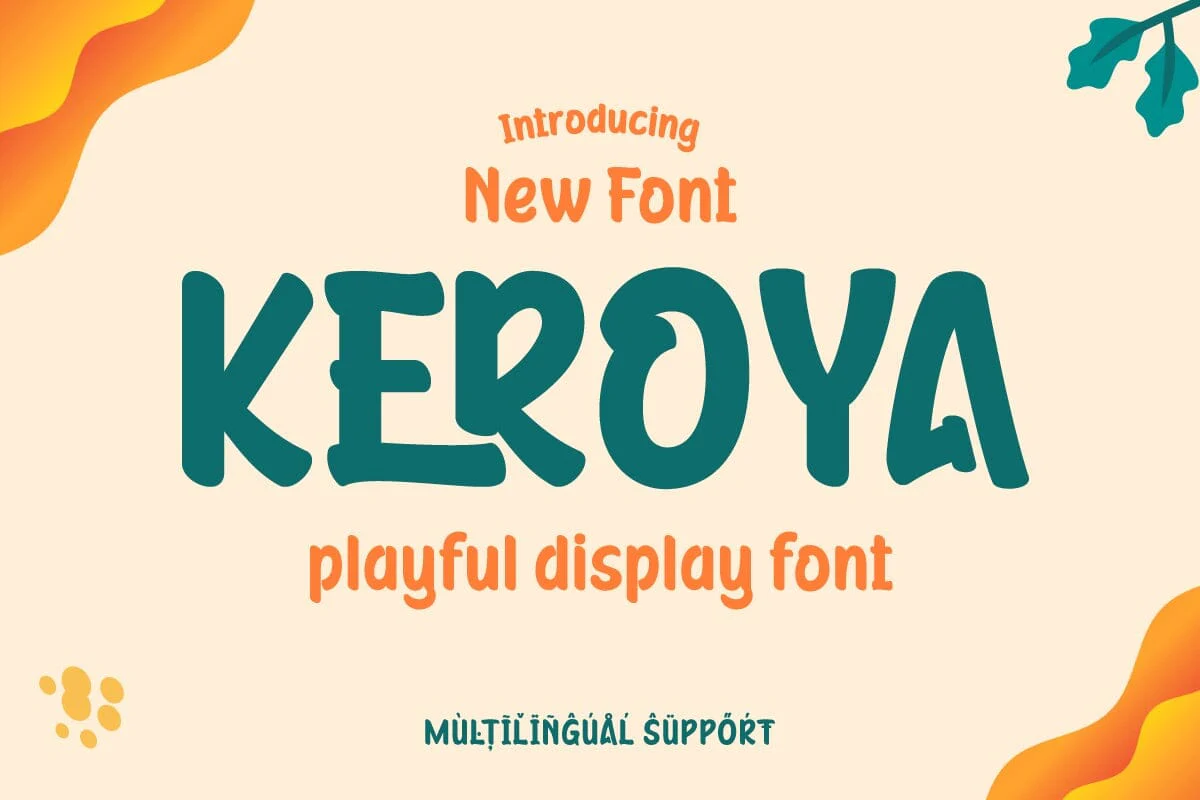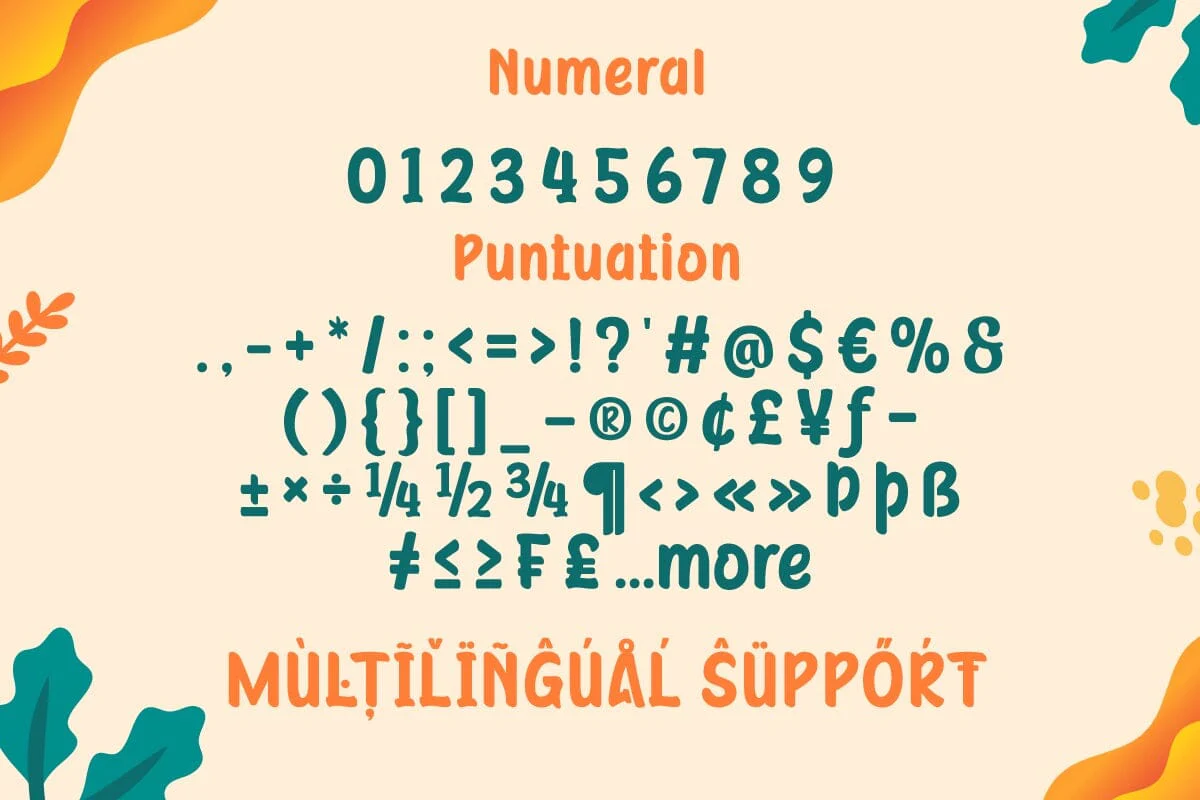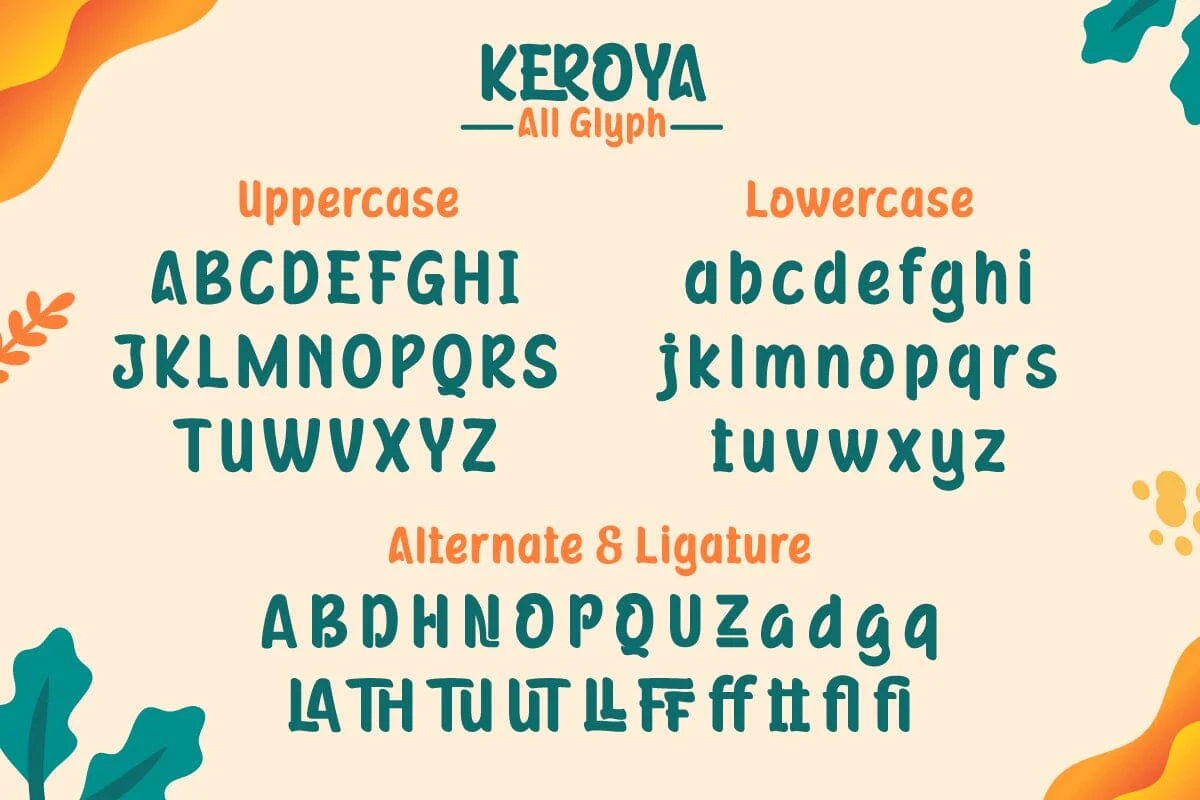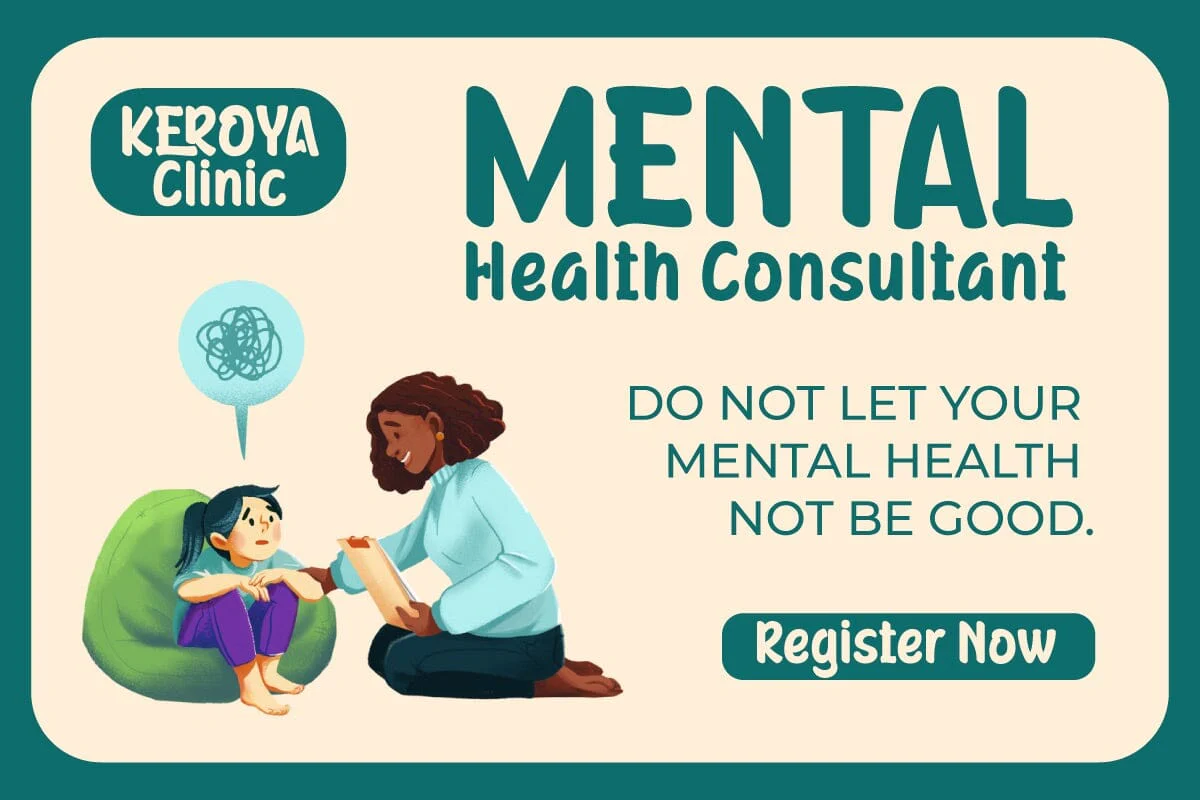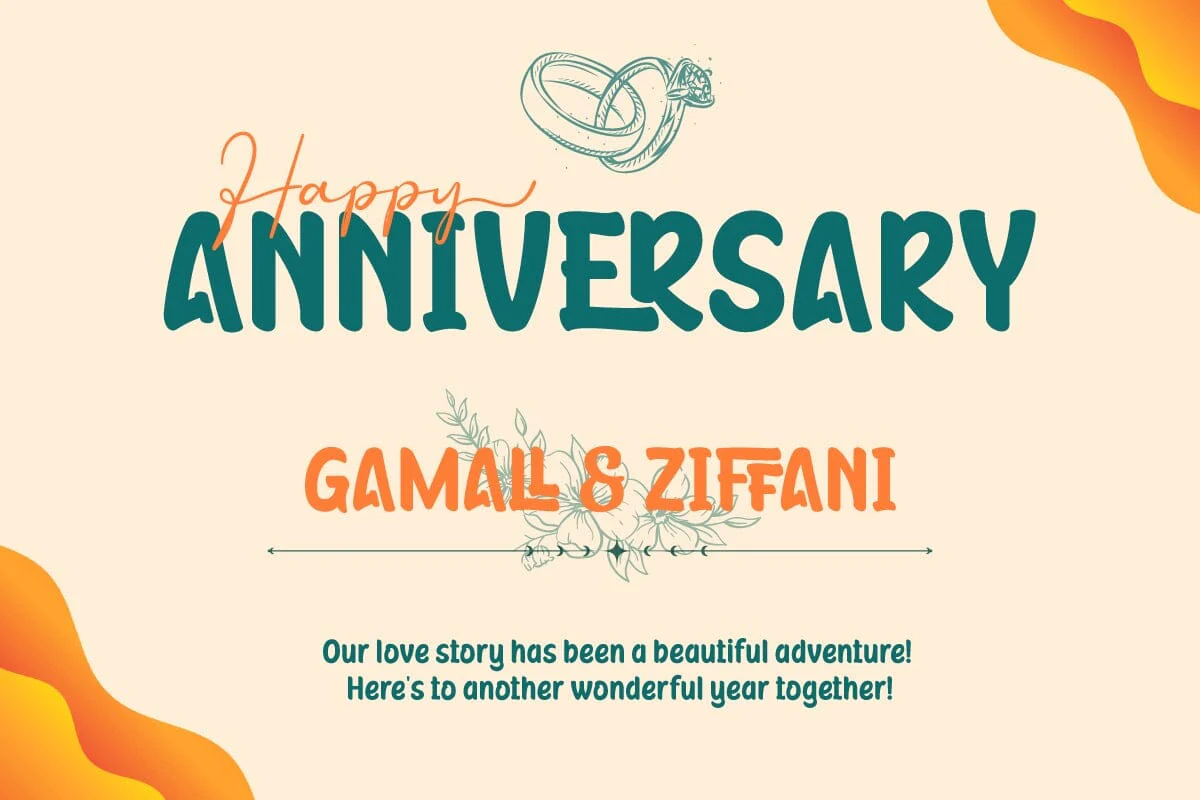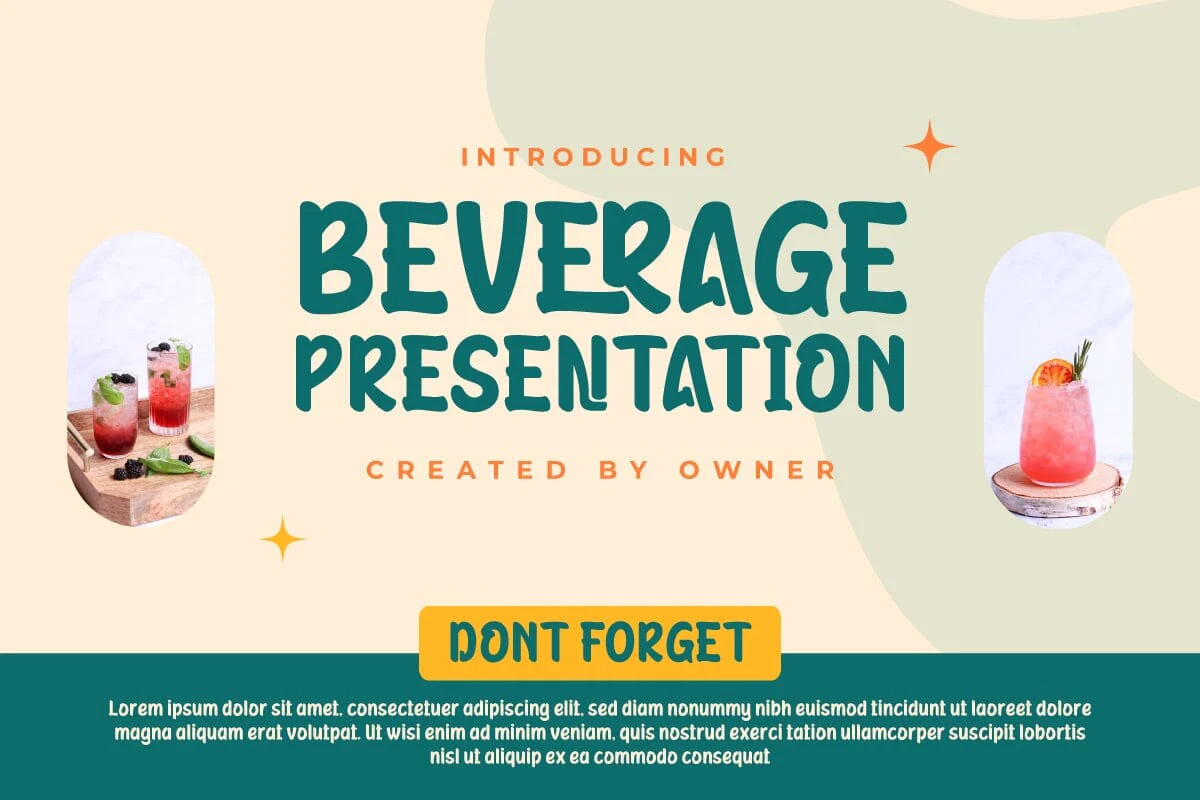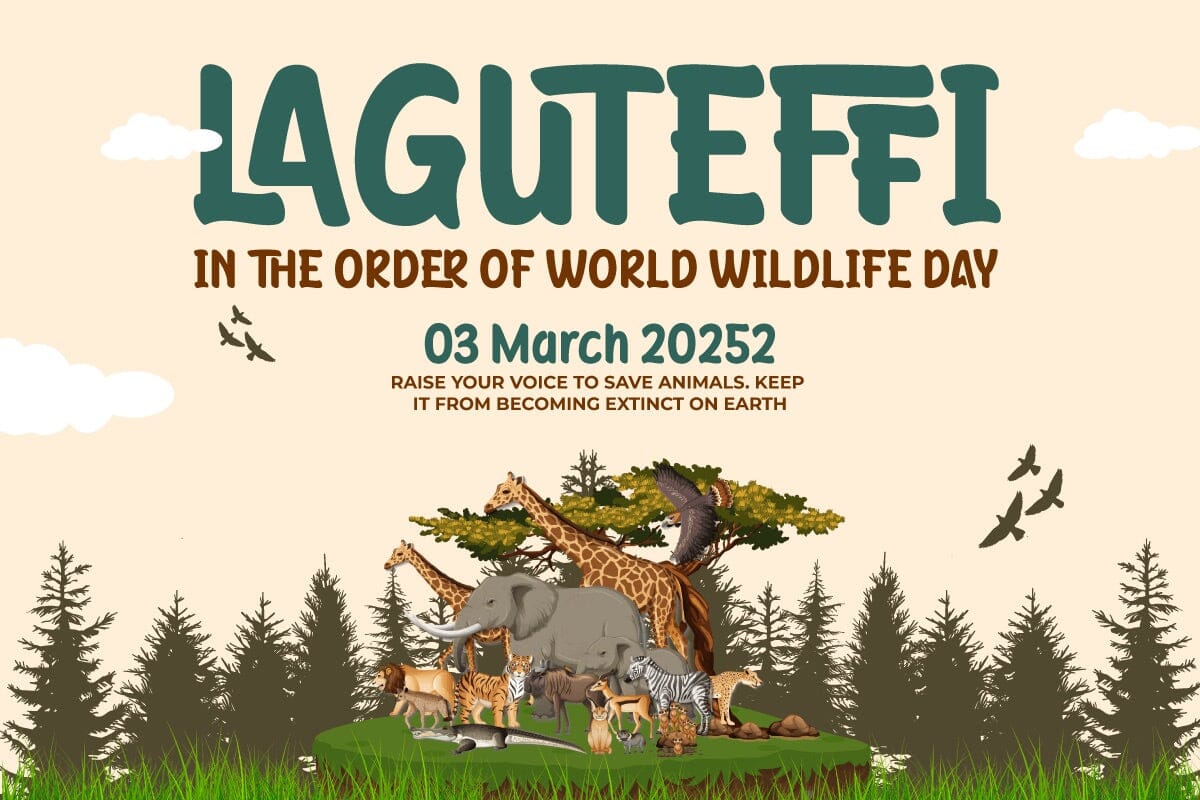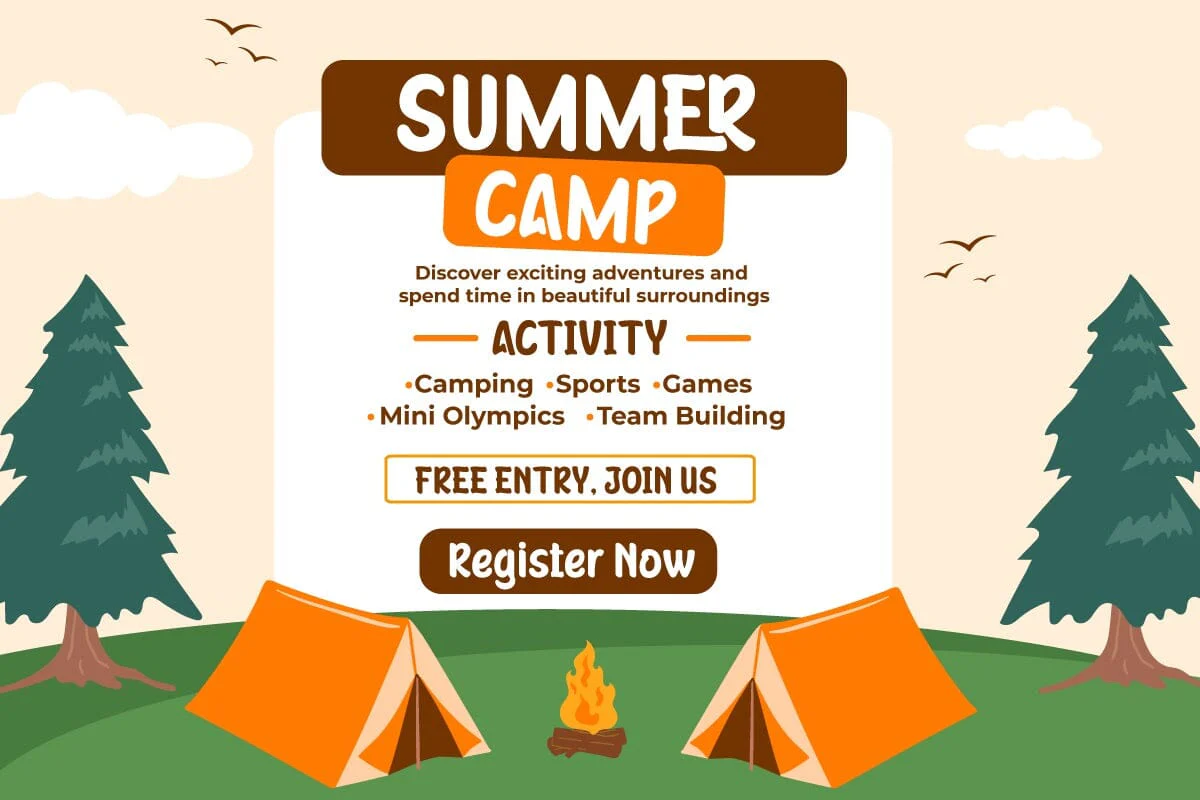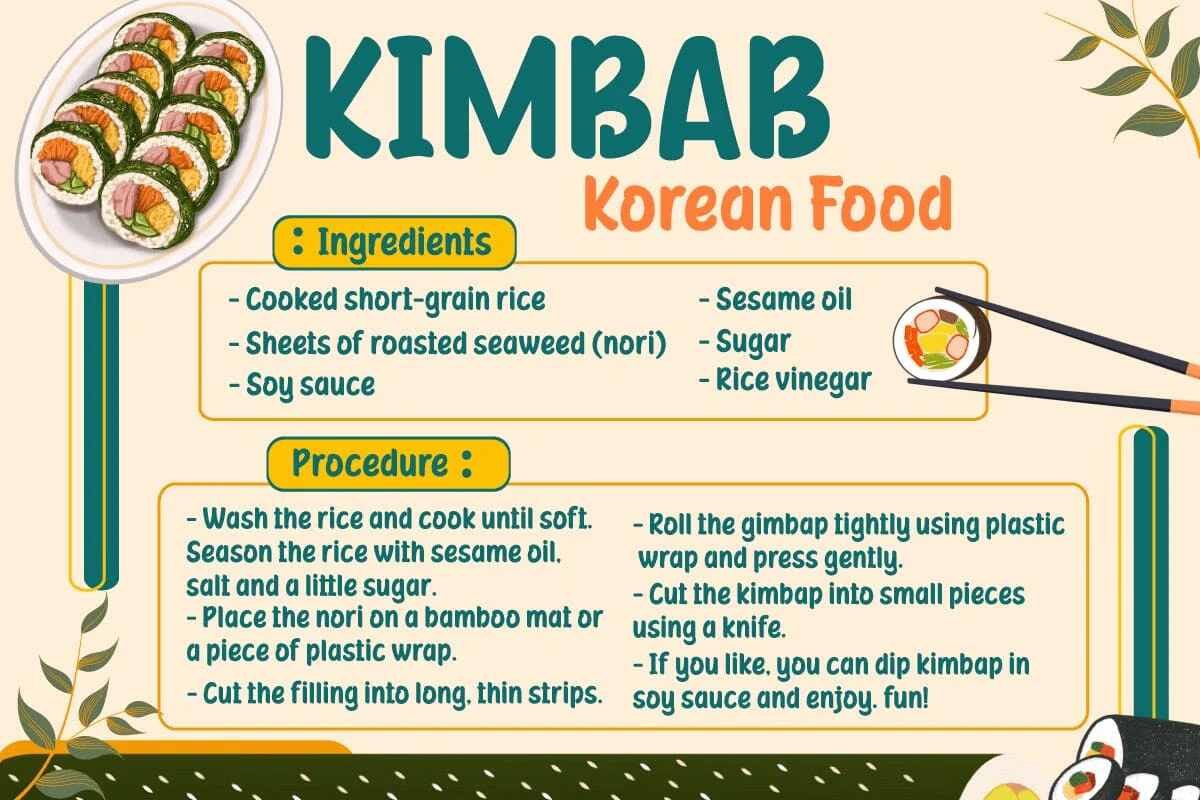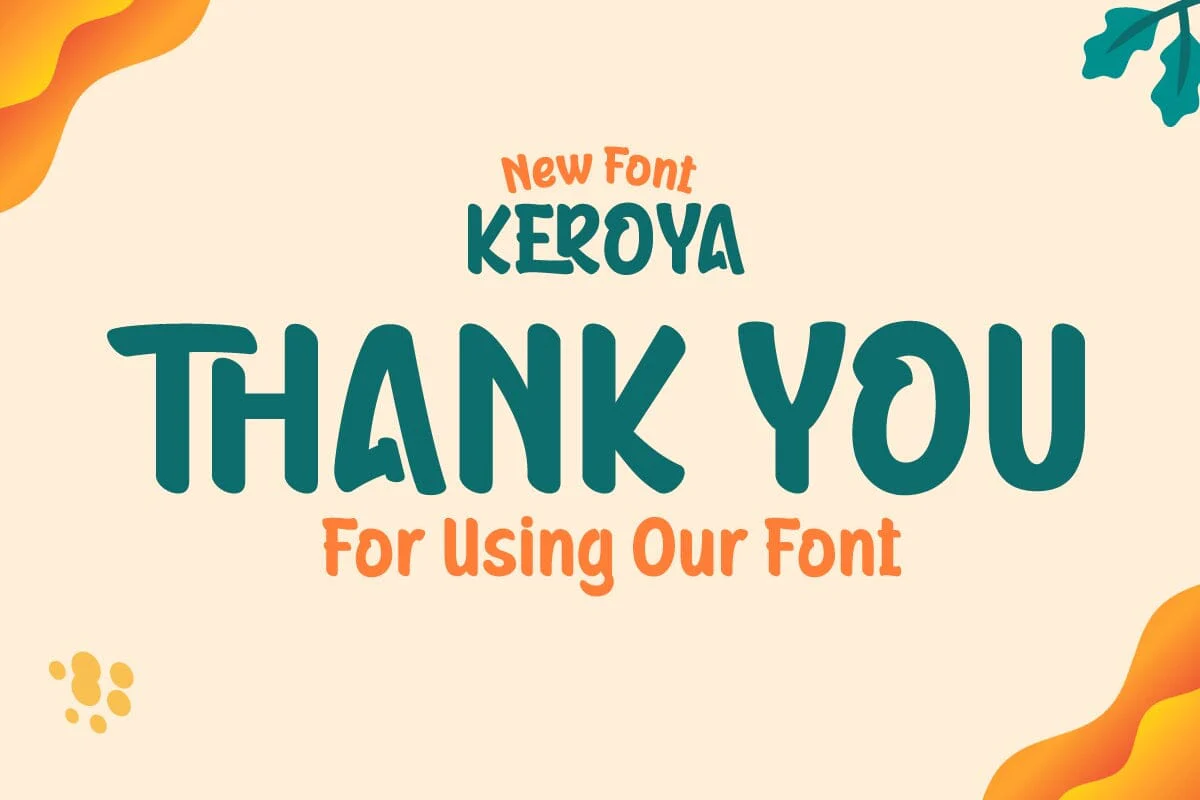
Keroya - Handwriting Font
Welcome to the world of Keroya, a relaxed handwritten display font. Do you need a relaxed touch and a non-stuffy title for your project? Keroya is the perfect choice.
Keroya brings a relaxed feel and beautiful handwriting to each character. This font is designed to bring your designs to life, giving any project a relaxed and stylish feel. With Keroya, you can create a headline that stands out, a catchy slogan, or a memorable message.